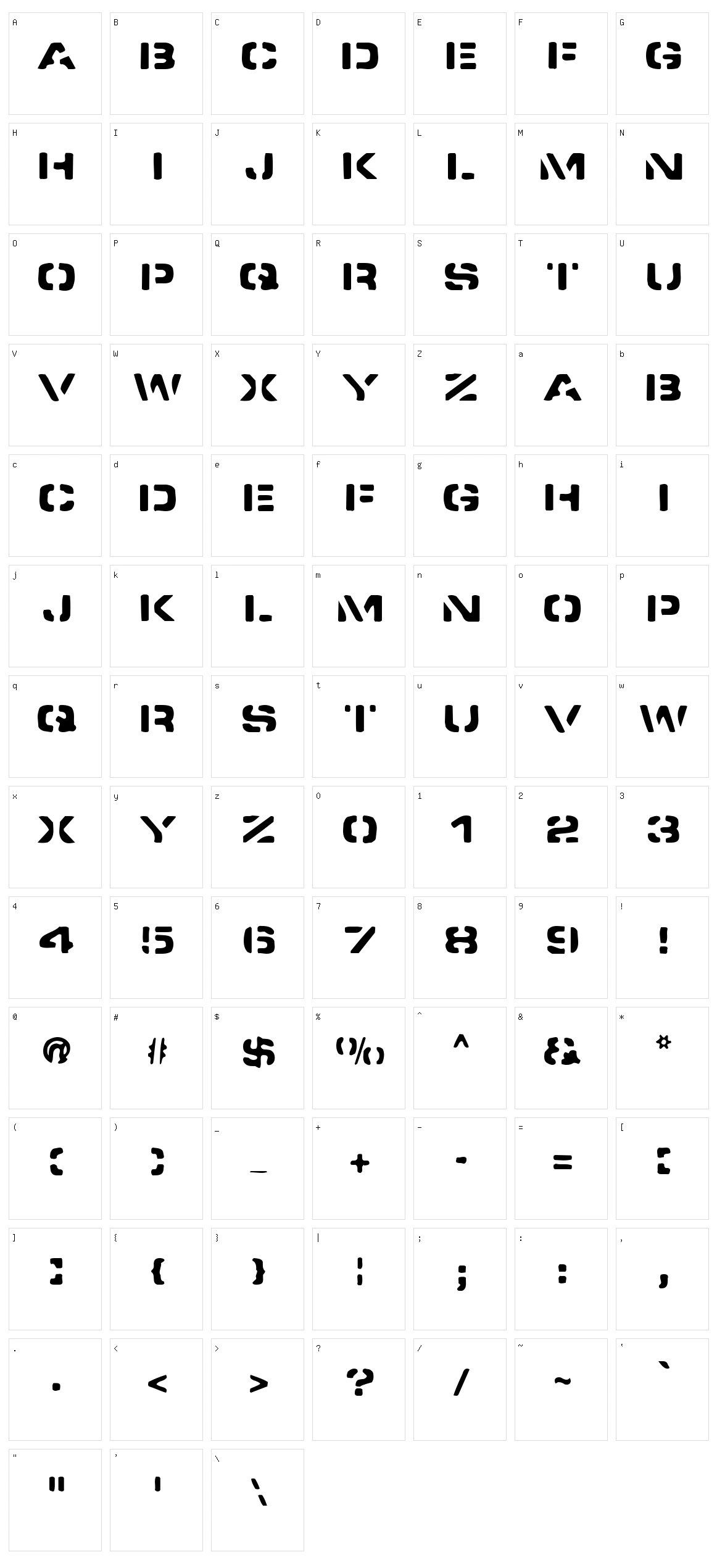
SPACEDOCK STENCIL
Spacedock Stencil is a font I assumed already existed - a stencilized, slightly stressed adaptation of a classic typeface that has long been associated with space-adventure fiction (used for signage in Space: 1999, the Star Trek films, and many others). I searched up and down for a long time, and while I encountered the occasional mock-up of stencils using this style, they were always individual works of graphic design, where somebody stencilized-and-stressed the thing by hand in a paint program.
So, I decided to stencilize-and-stress the entire keyboard set (plus some of my usual extras, like smartquotes and true dashes and things) all at once, so I'd never have to do it again!
I hemmed and hawwed over how much stressing to add ... did I want a flaked-paint look? A rusted-and-corroded look? A painted-by-an-idiot-not-competent-to-handle-a-paint-sprayer look? In the end, I went for very mild stressing - just a few random touches and a mild bloat to the edges, to give it a hasty but not *ruined* appearance, since added stressing is much easier to do later on than the rest. The final result is one I'm pleased with: an original font that hearkens back to an old favorite, and one that I'll find useful in upcoming Points in Space installments! Enjoy.